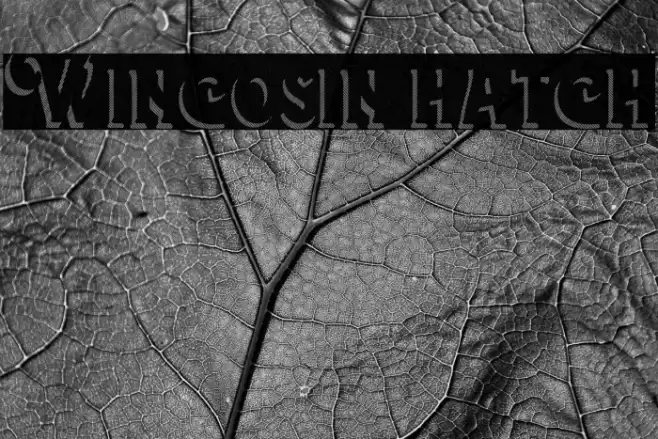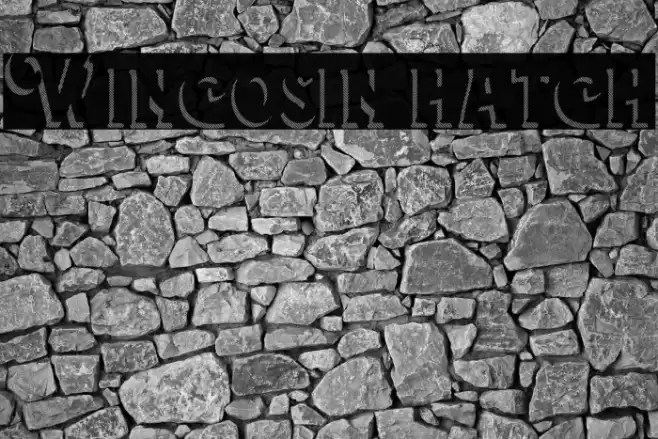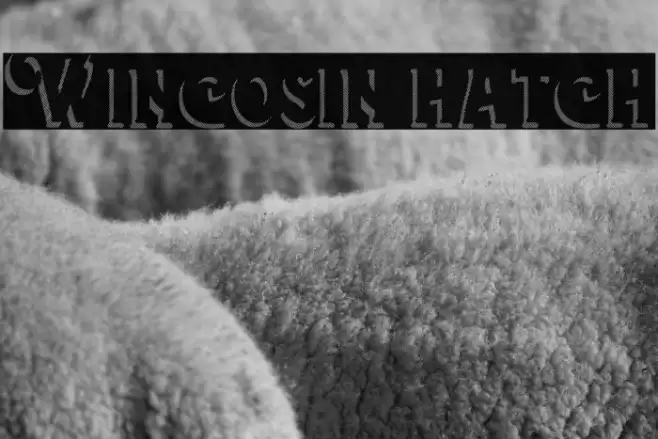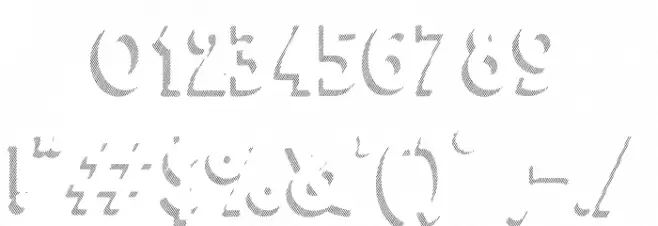
Wincosin hatch Font
Wincosin hatch Description
This font features a unique stencil-like design with a distinct diagonal hatching pattern within each character. The uppercase letters are bold and prominent, showcasing a modern and industrial aesthetic. The numerals and special characters follow the same design principle, ensuring consistency across all glyphs. The font's style is both eye-catching and functional, making it suitable for various creative applications. Its geometric shapes and clean lines contribute to a contemporary look, while the hatching adds texture and depth, enhancing its visual appeal.
A bold, stencil-style font with diagonal hatching for a modern, industrial look from Regular fonts.
- Proposed Projects: Ideal for branding, packaging, posters, and any project requiring a bold, industrial aesthetic.
- Overall Style: Modern, Industrial